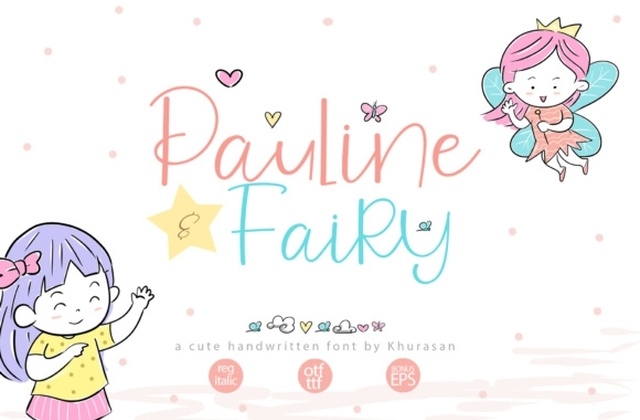
Pauline and Fairy Font
Pauline and Fairy Font is perfect for various design applications including enchanted wedding invitations, children's storybook titles, fairy tale illustrations, magical event branding, whimsical greeting cards, fantasy novel covers, princess party decorations, mystical spa signage, artisan jewelry packaging, and ethereal beauty product labels. This magical typeface excels in projects requiring delicate enchantment and otherworldly charm that transports audiences into realms of wonder and feminine mystique.
What makes Pauline and Fairy Font so exciting is its exquisite blend of elegant script writing with mystical fairy tale elements that create truly enchanting visual experiences. The font features flowing, graceful letterforms adorned with delicate swirls, magical flourishes that suggest fairy wings, and ethereal decorative elements that evoke moonbeams and stardust. Its distinctive romantic character and celestial beauty make it perfect for brands seeking to communicate elegance, magic, and the timeless appeal of fairy tale romance and feminine mystique.
The Pauline and Fairy Font family includes script and decorative versions, along with ornamental elements and magical symbols that enhance its versatility for different enchanted applications. Each style maintains the font's signature ethereal character while providing options for various mystical design approaches. The family also features decorative borders, fairy silhouettes, and celestial ornaments that can be combined with the letterforms to create cohesive magical design systems.
Whether you're creating romantic branding, children's entertainment, or mystical product lines, Pauline and Fairy Font Free Download delivers enchanting typography that captures the essence of fairy tale magic and feminine grace. This typeface transforms ordinary communications into spellbinding experiences that celebrate beauty, wonder, and the eternal appeal of magical storytelling. The font's delicate appeal makes it particularly effective for luxury brands, children's publishers, and businesses targeting audiences who appreciate feminine elegance and magical themes.
Pauline and Fairy Font stands out by delivering authentic fairy tale charm that feels genuinely magical rather than artificially sweet or overly commercial. Its carefully crafted flourishes and elegant proportions ensure that designs feel enchanted and sophisticated while maintaining excellent readability for romantic messaging. From intimate wedding stationery to fantasy book covers, this font provides designers with tools to create communications that celebrate the magic of femininity and transport audiences into worlds where dreams come true through elegant, fairy-blessed typography.